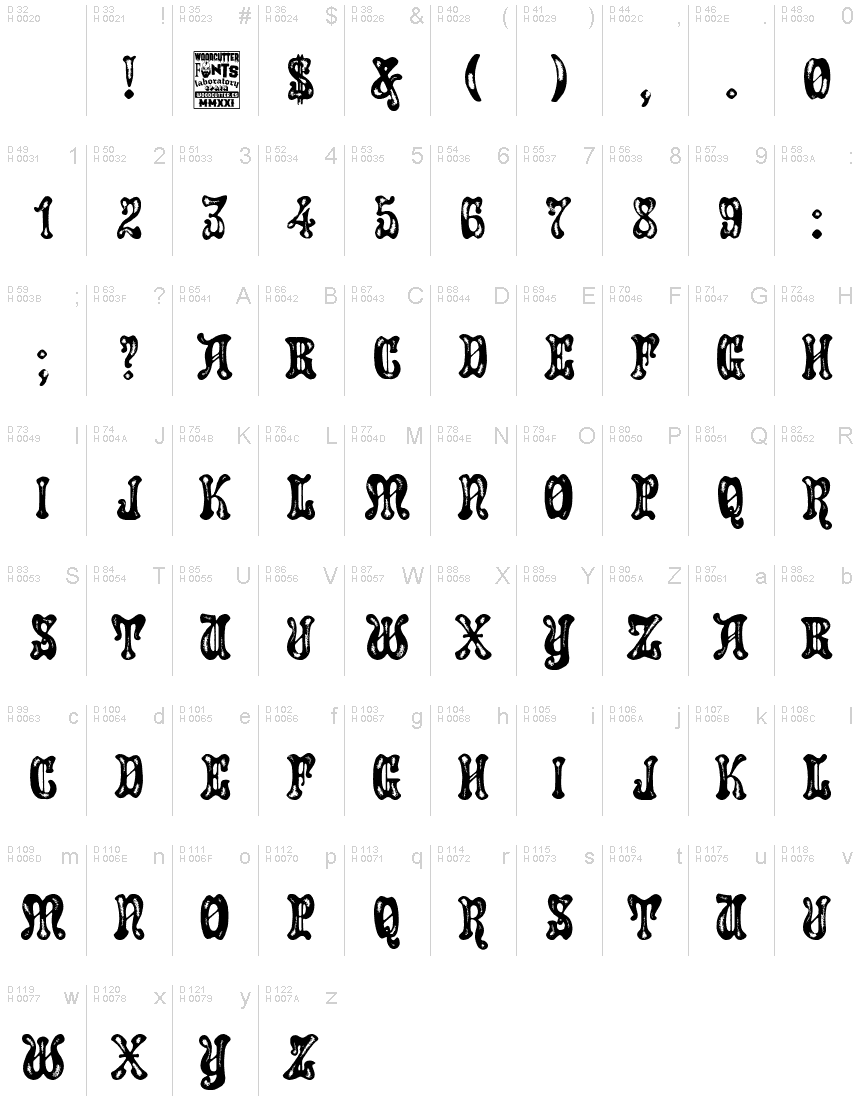
Sherwood Forest
Sherwood Forest, an eroded and vintage display font by Woodcutter, brings a touch of nostalgia to your design projects.
Its semi-bold weight adds a boldness to your headlines, while its eroded style gives them a worn and weathered look. Perfect for recreating an old-world charm, this font is ideal for vintage-themed designs such as posters, logos, packaging, and apparel. Sherwood Forest takes you on a journey through time and captures the essence of the past in every stroke.